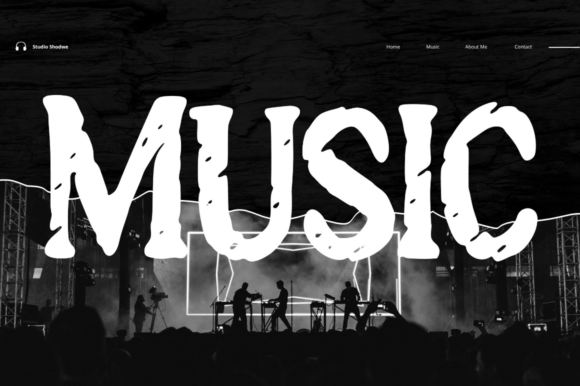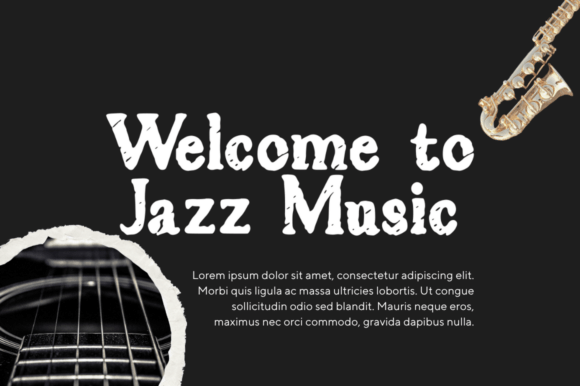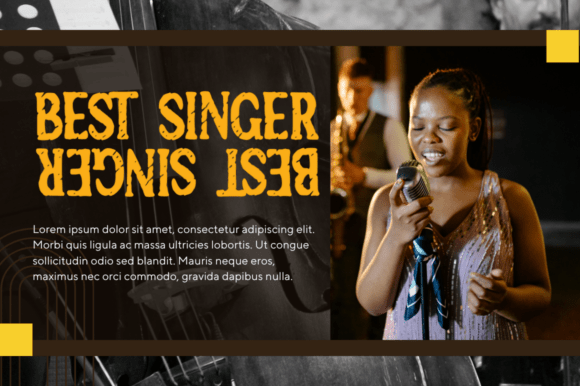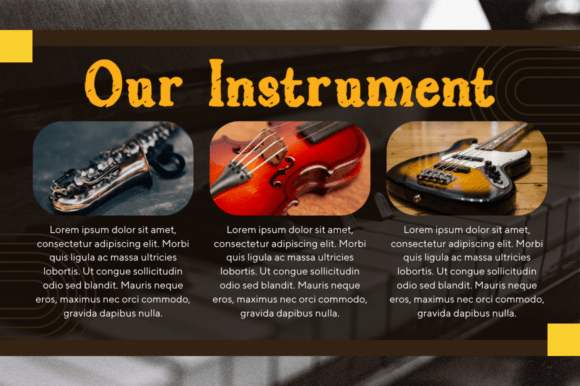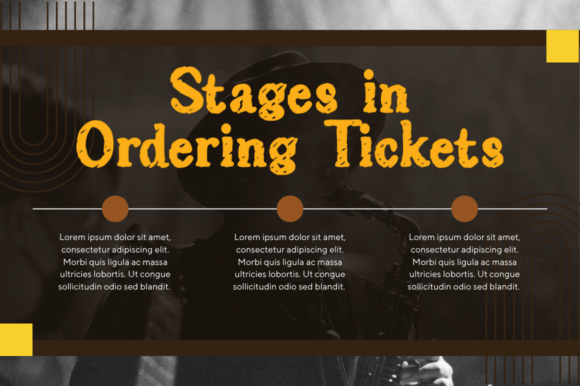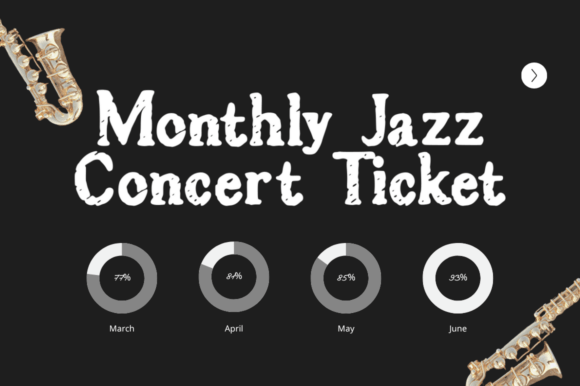
Introduction to Paintology Font
Paintology Font is a classic serif font with a gritty, textured twist.
Its vintage letterforms are combined with worn-out edges and ink splatters, making it ideal for horror titles, historical themes, underground zines, retro posters, and anything that demands a raw, rugged look Perfect for designs that want to balance tradition and rebellion.
Paintology Font offers exceptional quality and versatility, making it a valuable addition to your design toolkit. Whether you’re creating for personal projects or commercial use, Paintology Font delivers professional results.